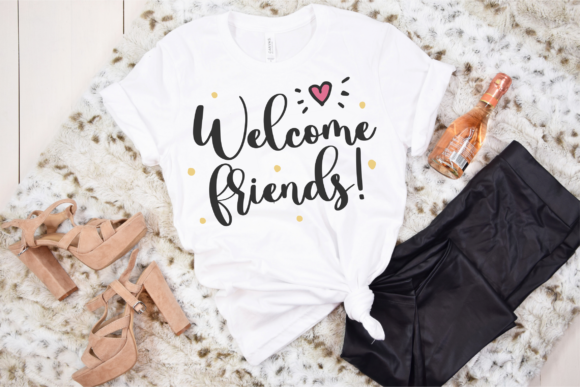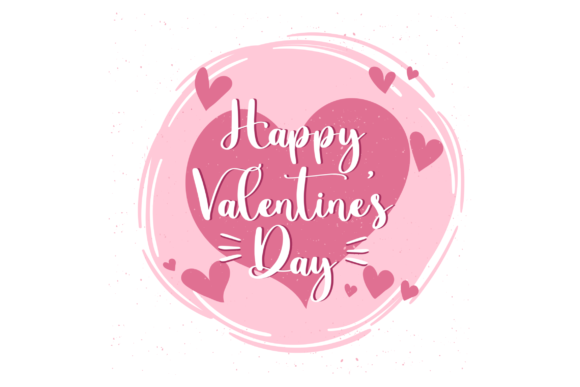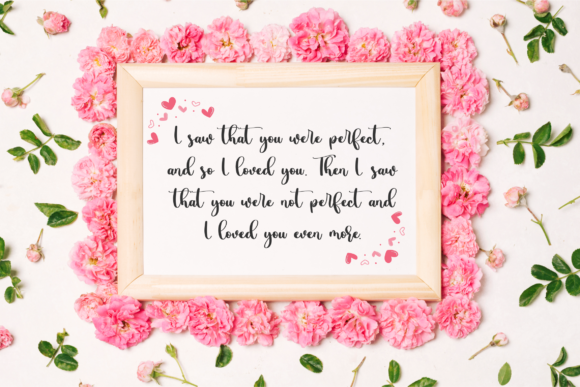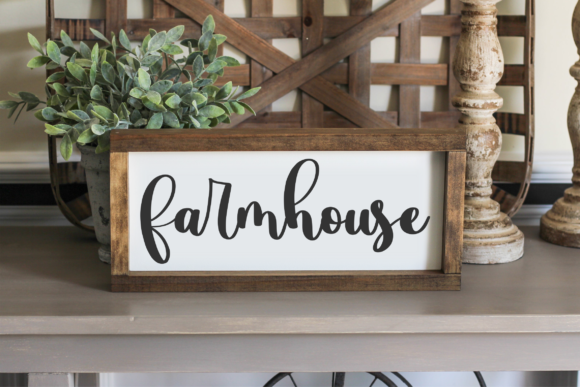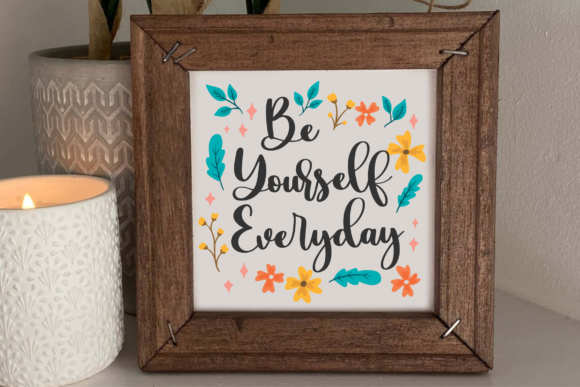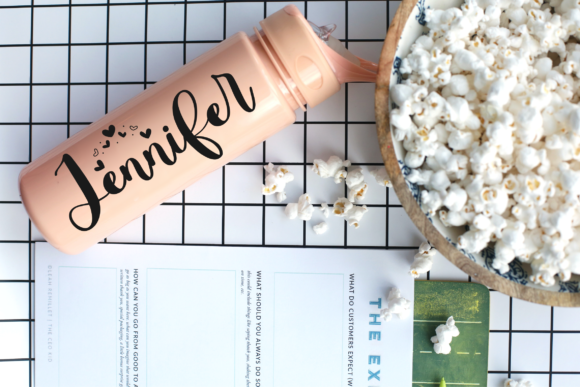
Introduction to Moryscript Font
Proudly Presenting, Moryscript.
Moryscript is a Modern Handwritten Script Font Moryscript is perfect for product packaging, branding project, magazines, social media, weddings, or just used to express words above the background.
Moryscript Font offers exceptional quality and versatility, making it a valuable addition to your design toolkit. Whether you’re creating for personal projects or commercial use, Moryscript Font delivers professional results.